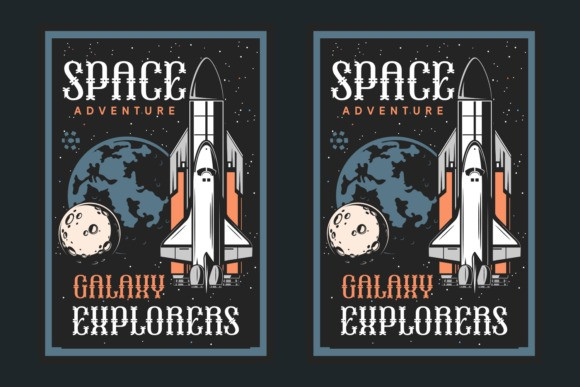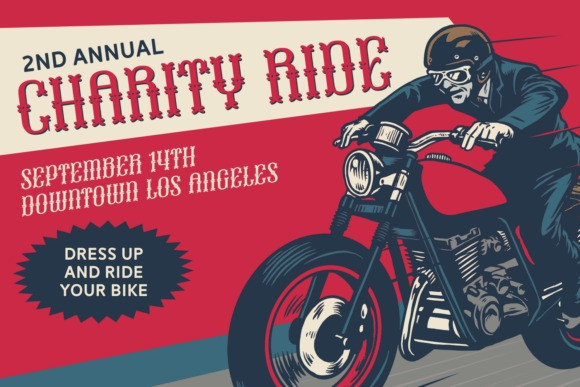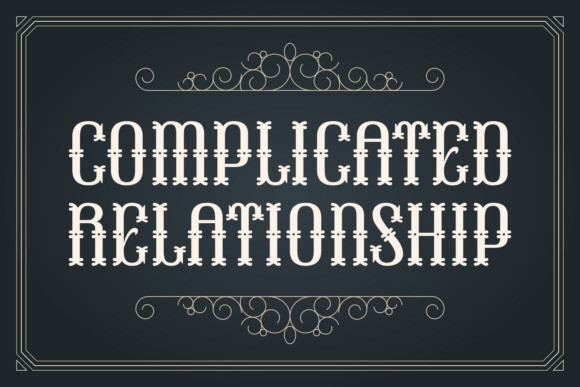
Complicated Relationship Font
Complicated Relationship Font is a captivating Blackletter font, exhibiting an unmissable vintage elegance and refined cleanliness. This artistic font is intricately crafted and excels in a variety of applications – it’s the perfect choice for adding a unique touch to your website or magazine. Enrich your brand design or apparel with its attractive appeal, or give your product packaging a distinctive edge. Whether you’re designing an invitation, creating an impactful poster, or adding personality to your logo, “Complicated Relationship” ensures a striking result. This font works superbly for apparel, book cover design or within the pages of your newest publication. With its striking black lettering, it can be used to bring a formal touch to greeting cards, provide a memorable quote, or make your T-shirt designs stand out. “Complicated Relationship” is a trendy addition to any designer’s font collection, perfect for injecting some personality into all your creative endeavours.